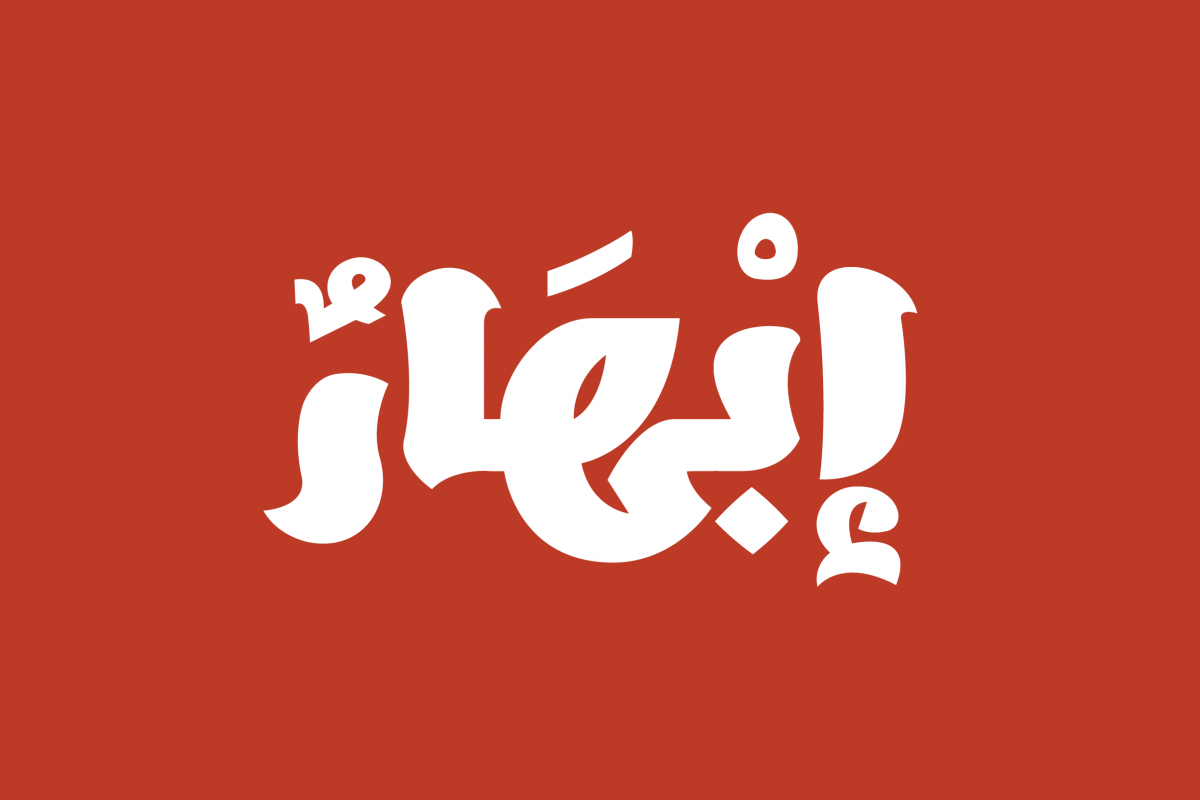
Ebhaar - Arabic Font
The word ‘Ebhaar’ is the Arabic for ‘Dazzle’Ebhaar is an Arabic display font with a dazzling style that combines the beauty of brush-pen effect infused with traditional Arabic calligraphy. The font supports Arabic, Urdu and Persian languages. Ebhaar is suitable for modern design projects such as branding, advertising, web and mobile applications.